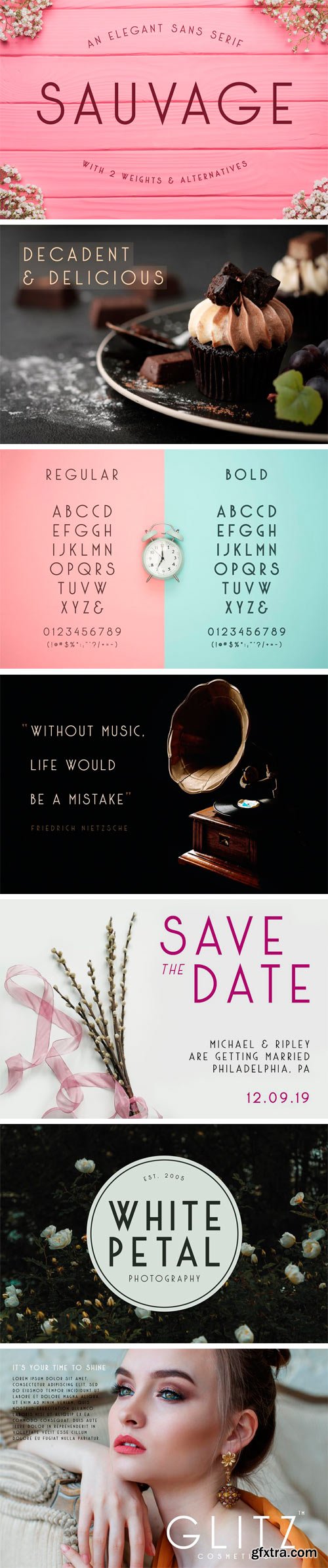
Sauvage is a luxurious sans serif typeface that is both timelessly elegant yet sophisticatedly modern. From beautiful wedding invitations to glamorous logos, magazine headings and beyond, let Sauvage add a touch of elegance to your next project.